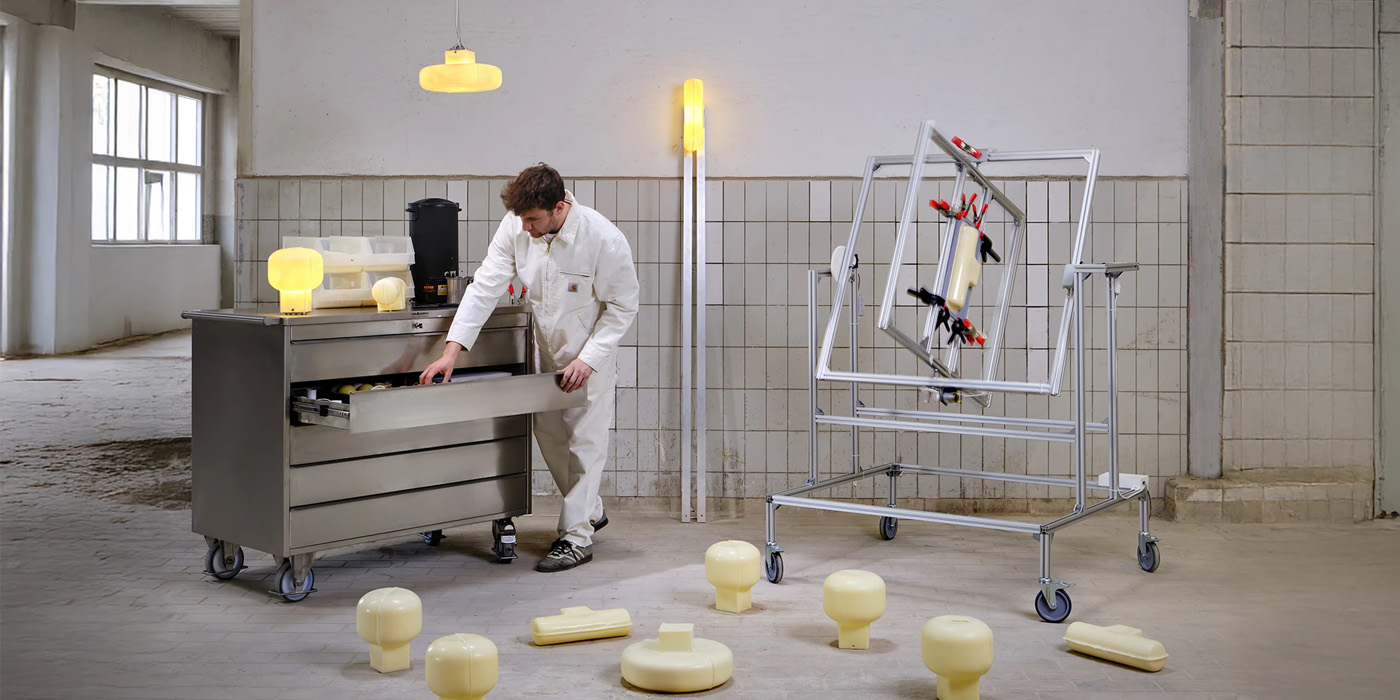
There are projects that make you completely rethink how we consume and interact with everyday objects. Based in the heart of Paris and founded by designers Emma Lohner and Philippe Gaud, Baguette Studio is a creative practice is driven by a deep commitment to craftsmanship and material exploration. They strive to question industrial systems by creating accessible and responsible solutions, building a more optimistic future through highly tangible design.
Redefining Lighting with Biodegradable Wax
When A Type of Amigo’s founder, Camila Curiel, caught up with Emma and Philippe at Milan Design Week, they shared the fascinating process behind their flagship project, Le Labo 1.0. This self-initiated lighting system is composed of a 100% natural, biodegradable wax blend seated on modular stainless steel bases. Instead of simply buying a lamp, you are essentially purchasing a specific weight of material (such as 800 grams of wax) that can be melted down and reshaped without any waste using a clever rotational moulding technique. After a year and a half of testing, they perfected a recipe of beeswax and plant-based waxes that withstands up to 80°C, ensuring the translucent color of the wax can radiate safely.
“We developed this project based around natural wax. So, it’s a blend we are melting here of beeswax and plant-based wax.
First we have the melted wax, then we have the molds. We carefully weigh out the wax—so this mold takes 800 grams. Then it will go spinning in the machine, for 20 to 25 minutes. And then after this, we do some simple cutting and cleaning up.
We did one year and a half of samples and tests, and we found this recipe, which is made of a bit of beeswax and different kinds of plant-based waxes. And now, our material starts deforming around 80°C, and it’s melting at 100°C. And so, we can do these kinds of things, too.
So, this is a larger, like a big scale. It’s one meter, and so we can do like a light box, but in wax. It’s not plastic behind, it’s wax. And so, the warm color of the wax can go out.”
The Baked Typography of César Potel
This tactile approach to volume extends into their visual identity. They collaborated with graphic designer César Potel to craft their custom typography. Growing up as the son of a carpenter, César has always had a natural affinity for high-volume work, bringing a dimensional mindset to the brand. True to the studio’s name, the inspiration for the letters came from the process of baking bread. The characters were designed to look as though they had just been cooked in an oven, with their bowls and counters swelling and getting delightfully puffy, much like rising dough. It is a brilliant typographic translation of their physical craft.
Explorations Beyond Lighting
Their material ingenuity adapts effortlessly across various scales and applications. For the Victoria Beaune jewellery display cabinet, they created a stunning presentation unit featuring organic, controlled waves on a large, backlit wax sheet to highlight the brand’s pieces. With the Minilamp XXO project, they scaled down their process to produce 150 accessible, 400-gram custom wax lamps for client gifts, maintaining their circular manufacturing system without compromising the aesthetic. They even pushed the boundaries of their medium for the Basket Club, experimentally forming baskets and plates by repeatedly dipping a cut steel grid into a bath of melted wax until a solid outer shell blossomed around the metal structure.
About Baguette Studio